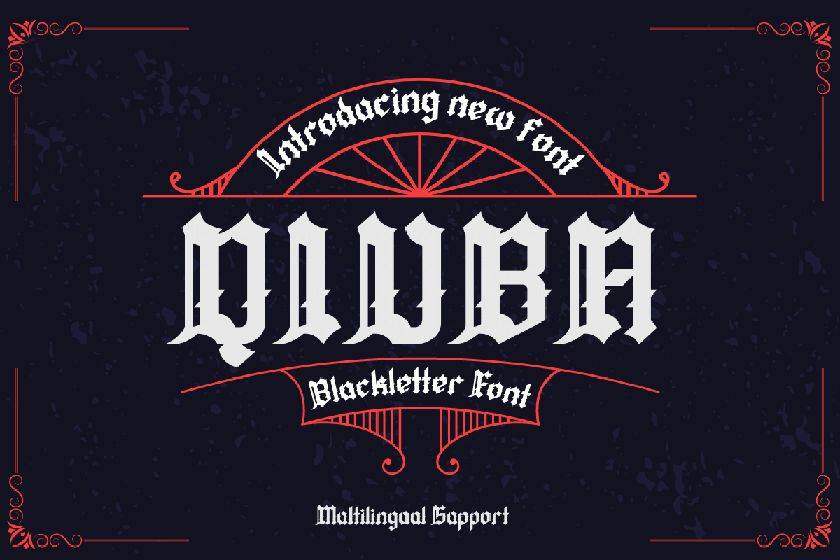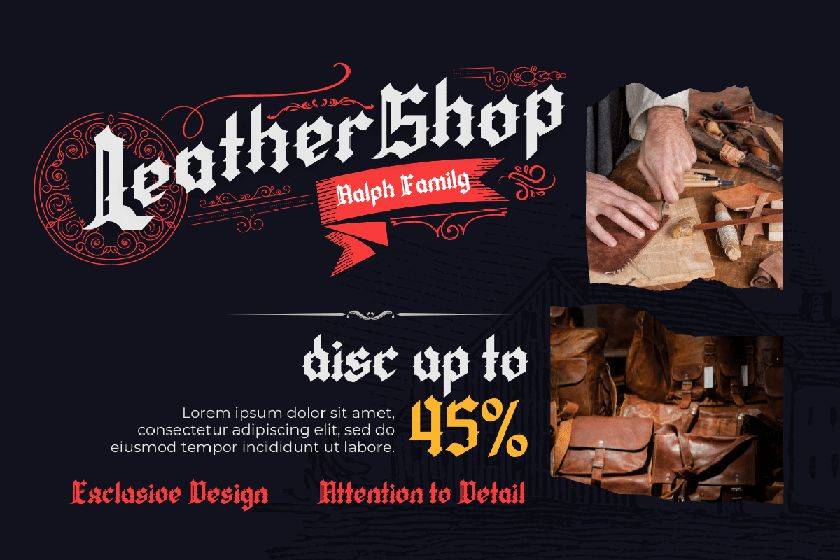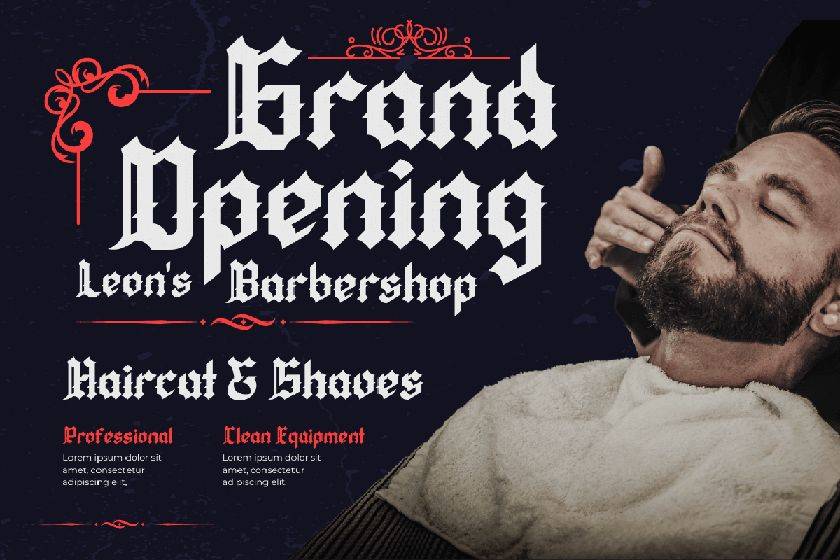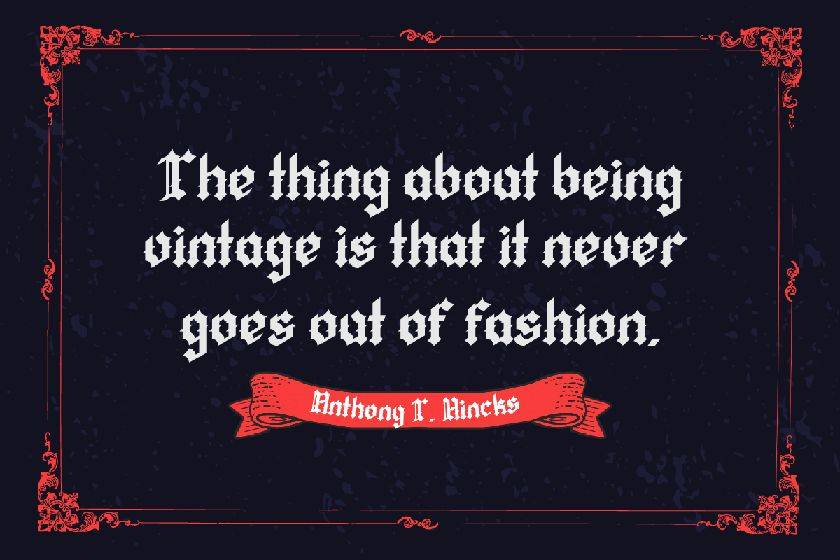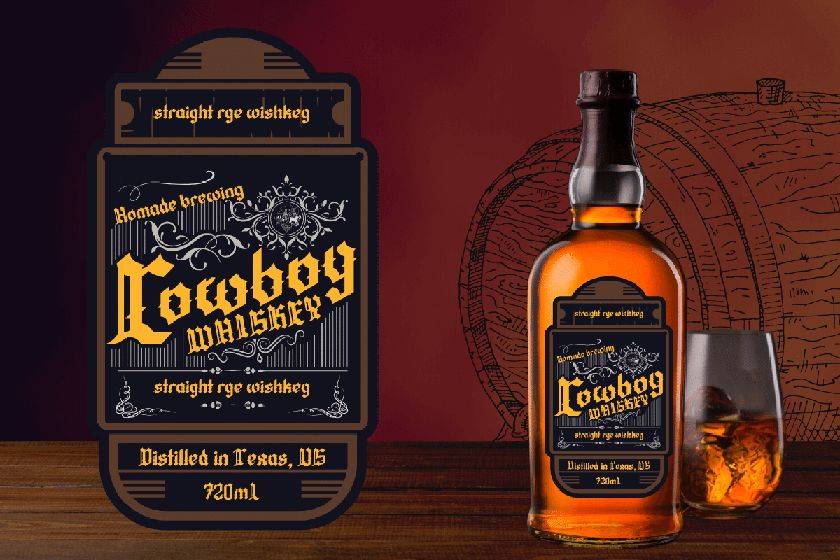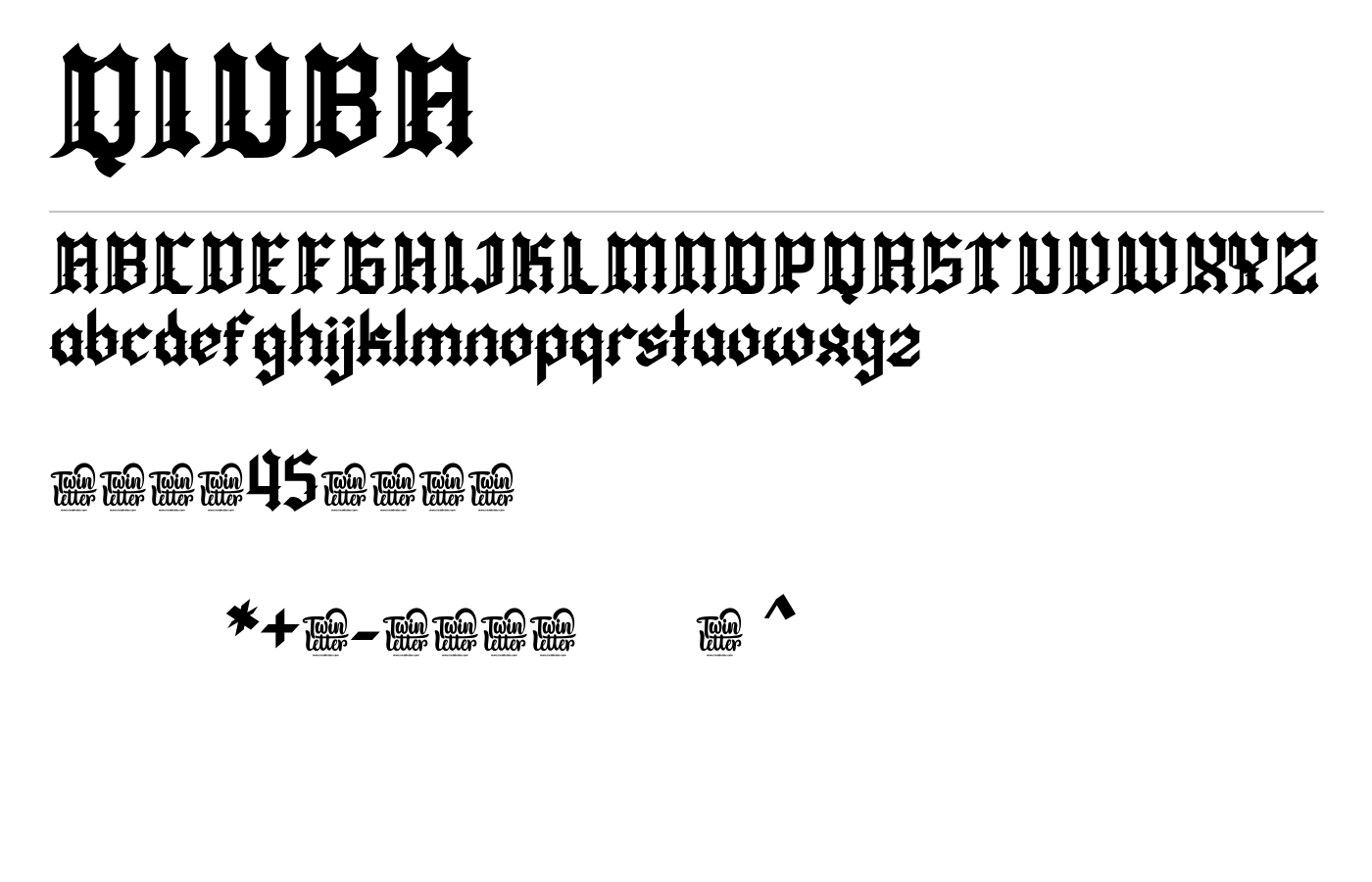
Qiuba is a bold blackletter font that features strong, angular strokes and a high contrast between thick and thin lines, giving it a dramatic and historic feel. Its dense, condensed letterforms and sharp serifs make it ideal for creating impactful headlines, logos, or branding with a gothic or vintage vibe. This font works best in decorative uses where a striking, old-world character is desired.
Qiuba Font
About Qiuba Font